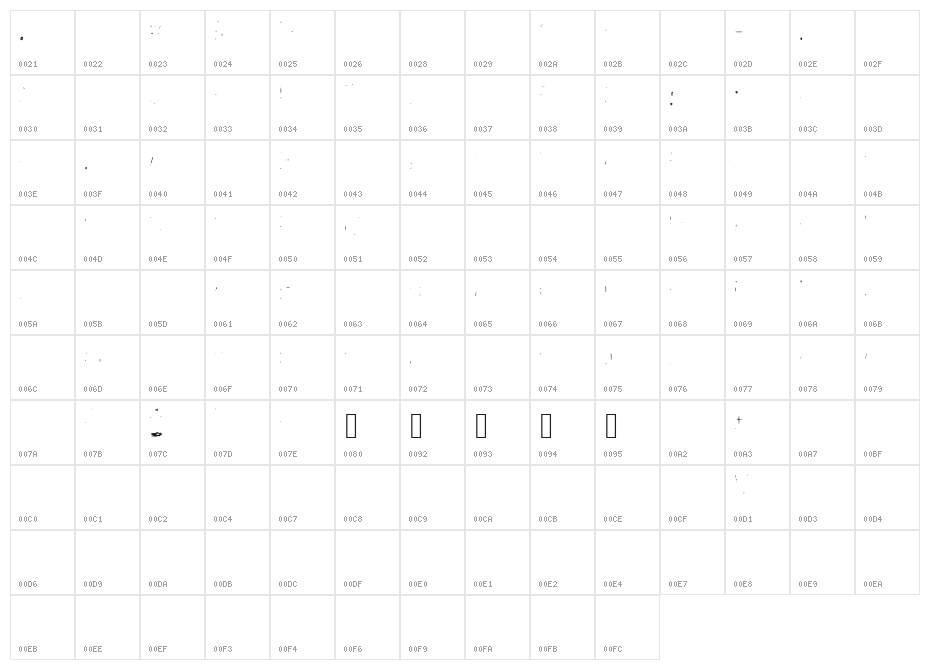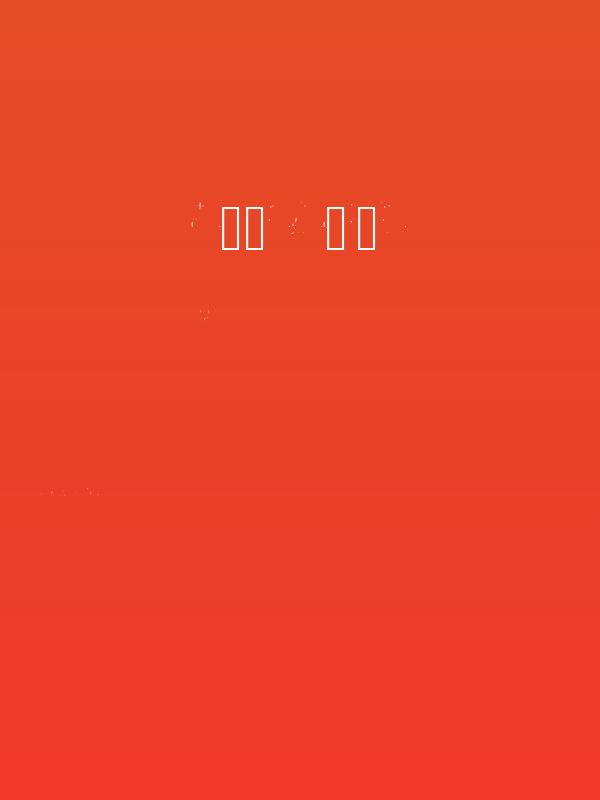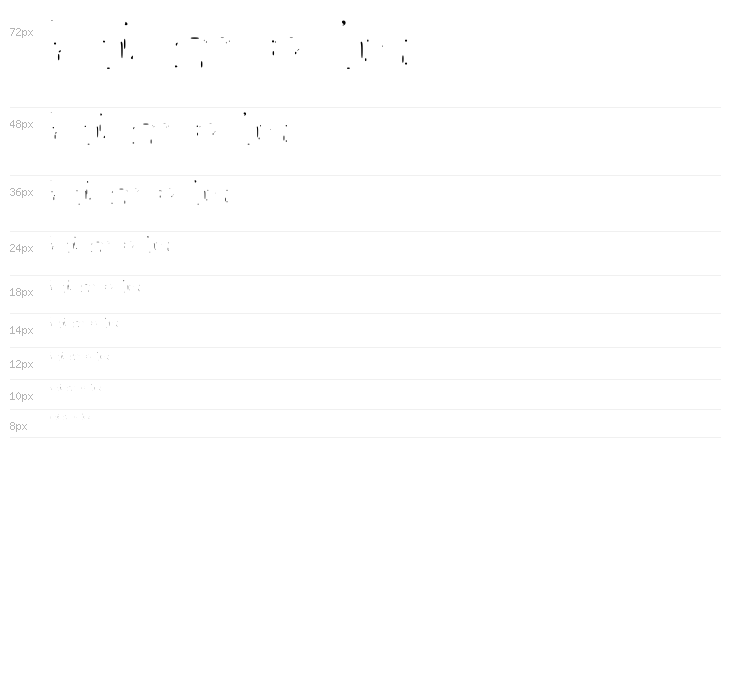
Geelyn_s_Handwriting_Super_Thin Font
Geelyn_s_Handwriting_Super_Thin Description
This font features an extremely delicate and thin stroke, resembling a light and airy handwriting style. The characters are elegantly crafted with a natural flow, giving it a personal and intimate feel. The thinness of the lines adds a sense of sophistication and modernity, making it suitable for designs that require a touch of elegance. The font maintains a consistent stroke width throughout, with a slight variation in the curves and angles that enhance its handwritten appearance. The spacing between characters is balanced, allowing for readability while preserving the aesthetic of handwritten text.
| Use Case | Logos, Invitations, Personal notes |
| Proposed Projects | Ideal for personal notes, invitations, greeting cards, and minimalist branding projects. |